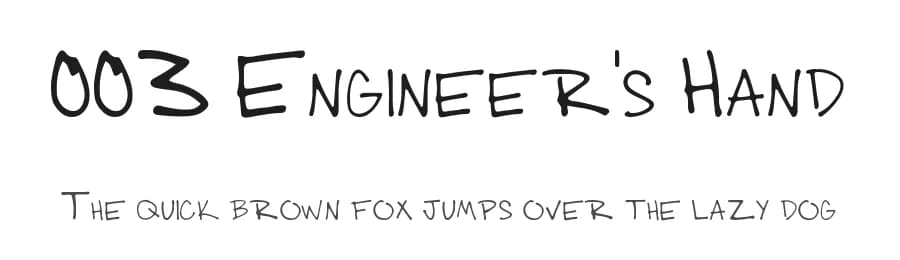
About 003 Engineer's Hand Font
003 Engineer's Hand is a script & handwritten font designed by Jane Bond. It includes 99 glyphs, a regular weight, TTF (TrueType) format, and 104 languages. 003 Engineer's Hand is free to download; check the license details on this page before commercial use. Script & handwritten fonts like 003 Engineer's Hand work best for wedding invitations, greeting cards, signatures, and elegant branding.
003 Engineer's Hand Font is a script font that shines as a display or heading face. Pair it with a clean sans-serif or serif font for body text β the contrast creates a clear hierarchy while the two styles stay balanced and easy to read.
003 Engineer's Hand Font
by Jane Bond